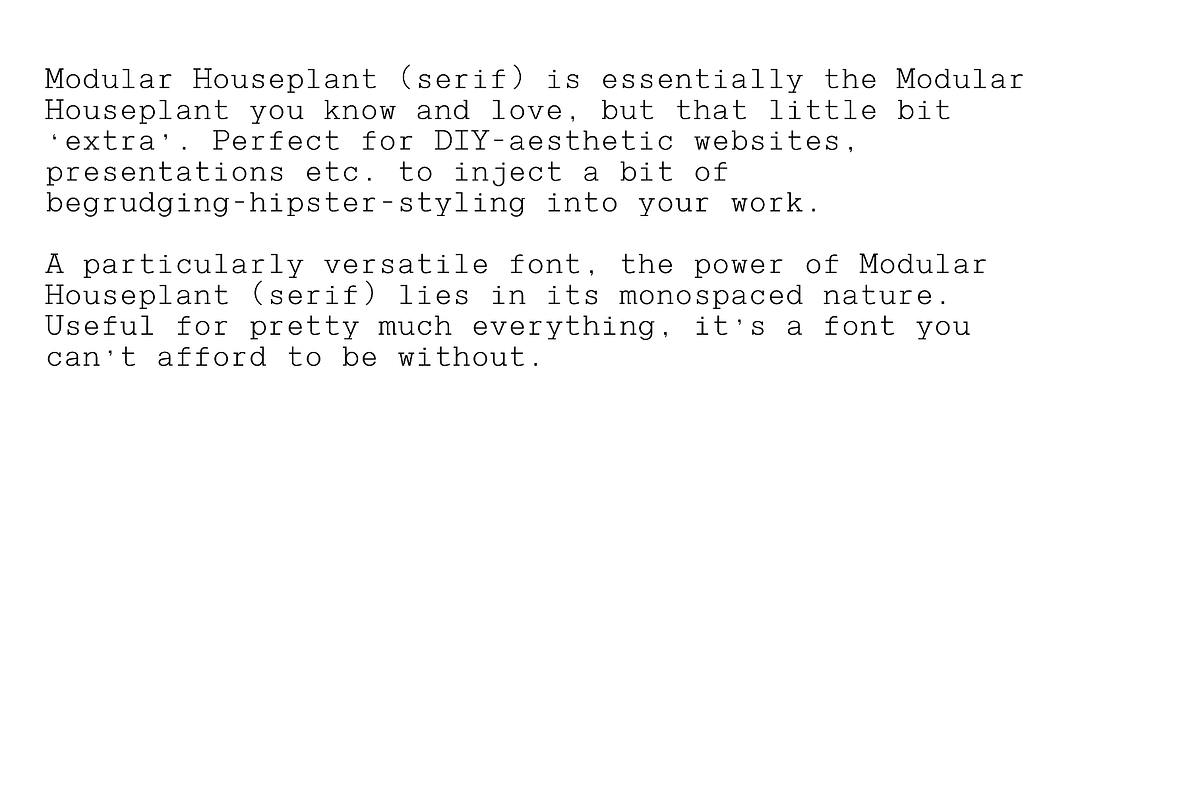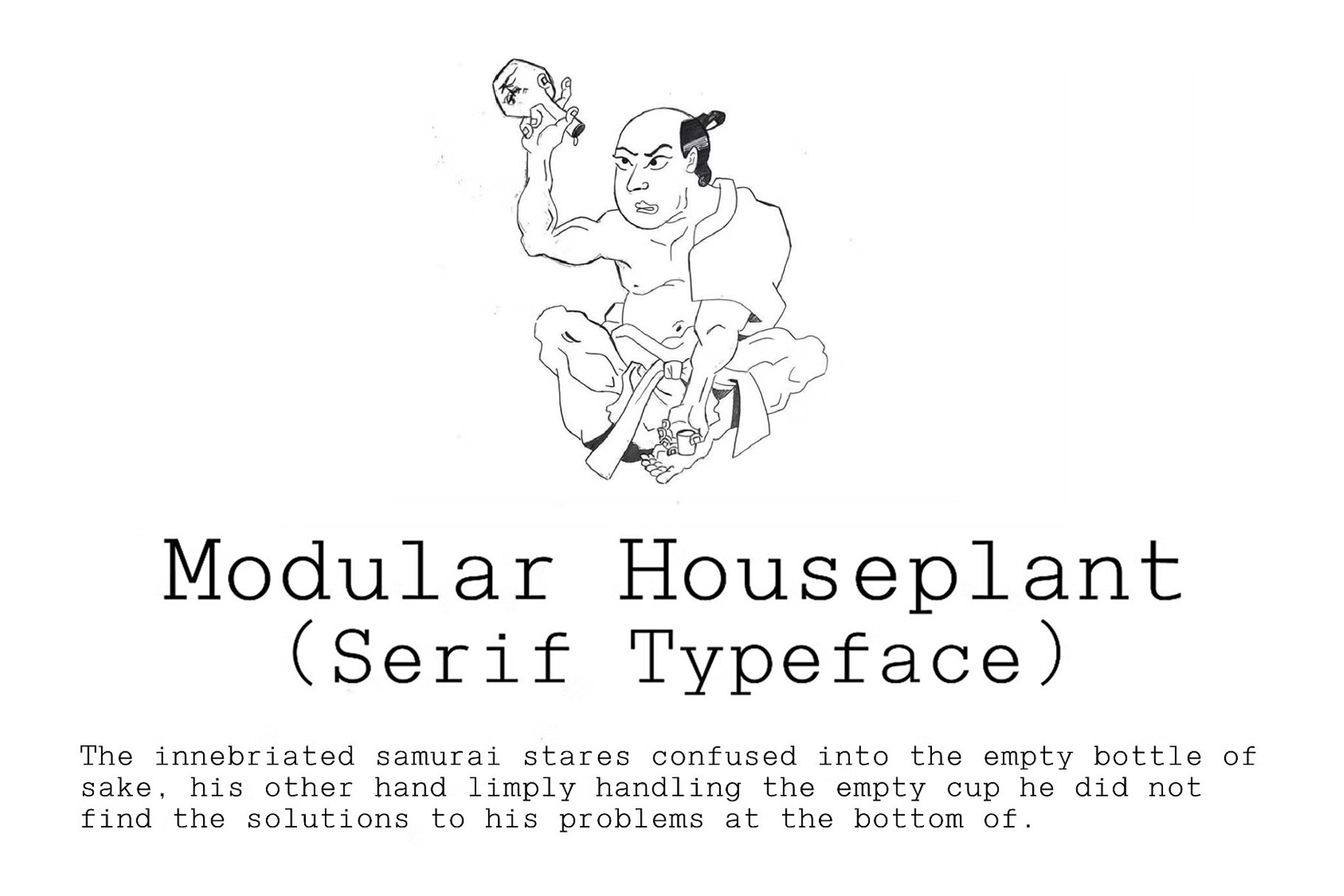
Modular (Serif) - Monospace Font
Modular Houseplant (serif) is essentially the Modular Houseplant you know and love, but that little bit ‘extra’. Perfect for DIY-aesthetic websites, presentations etc. to inject a bit of begrudging-hipster-styling into your work.
A particularly versatile font, the power of Modular Houseplant (serif) lies in its monospaced nature. Useful for pretty much everything, it’s a font you can’t afford to be without.